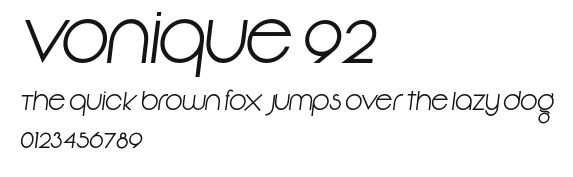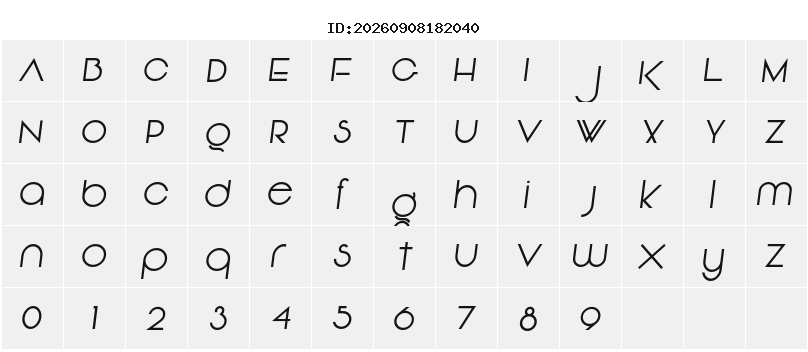
• Font Name: Vonique 92
• Font Style: Italique
• Full Font Name: Vonique92-Italic
About Vonique 92.otf
Vonique 92.otf is a modern, elegant sans-serif font designed for ultimate readability and visual harmony. Perfect for branding, headlines, web design, and print materials.